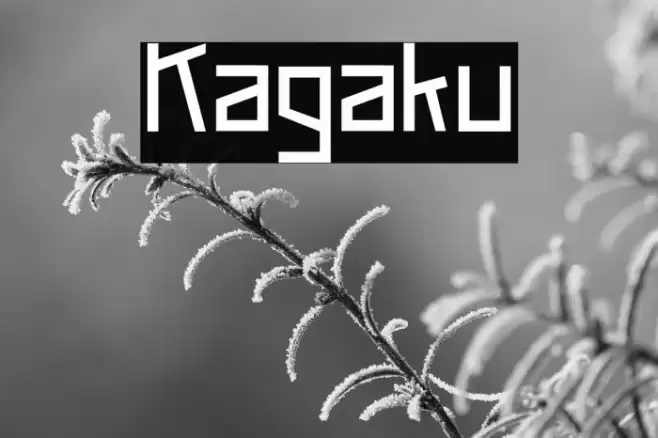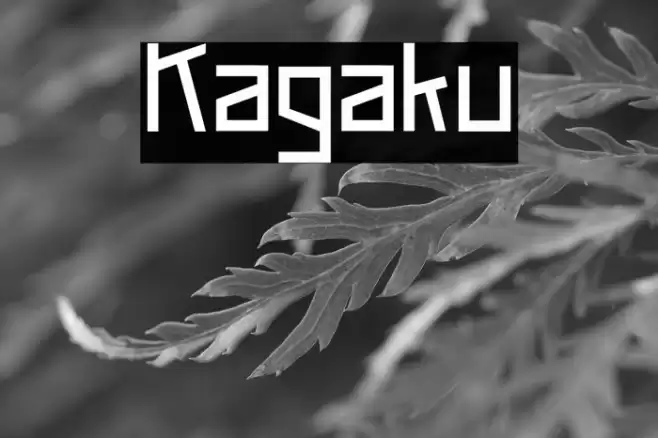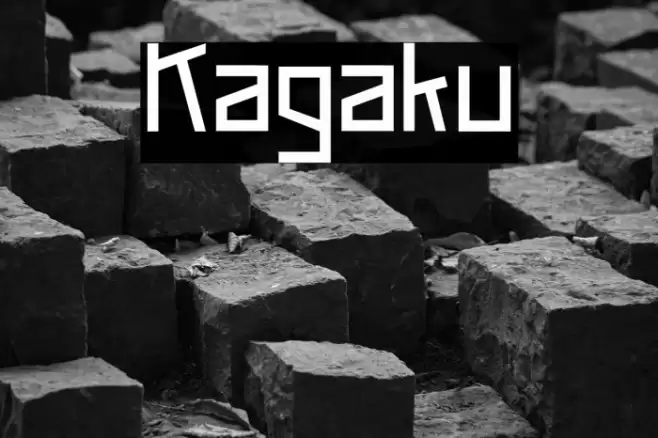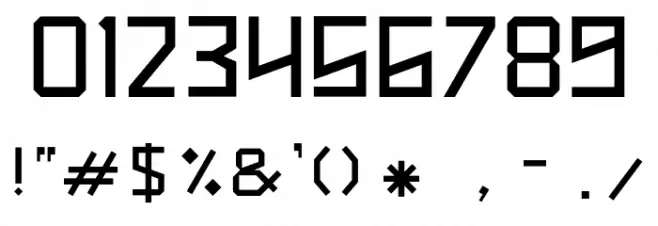
Kagaku Font
Kagaku Description
This font features a geometric and angular design, characterized by sharp edges and a futuristic aesthetic. The uppercase letters are bold and striking, with a consistent thickness throughout each character. The lowercase letters maintain the angular theme, providing a cohesive look across the typeface. Numbers are equally bold and geometric, ensuring readability and a modern feel. Special characters are designed with the same angular style, making them stand out while remaining consistent with the overall design. This font is ideal for projects that require a modern and edgy appearance.
A geometric, angular font with a futuristic and bold design from Regular fonts.
- Proposed Projects: Ideal for sci-fi themed designs, technology branding, video game titles, and modern posters.